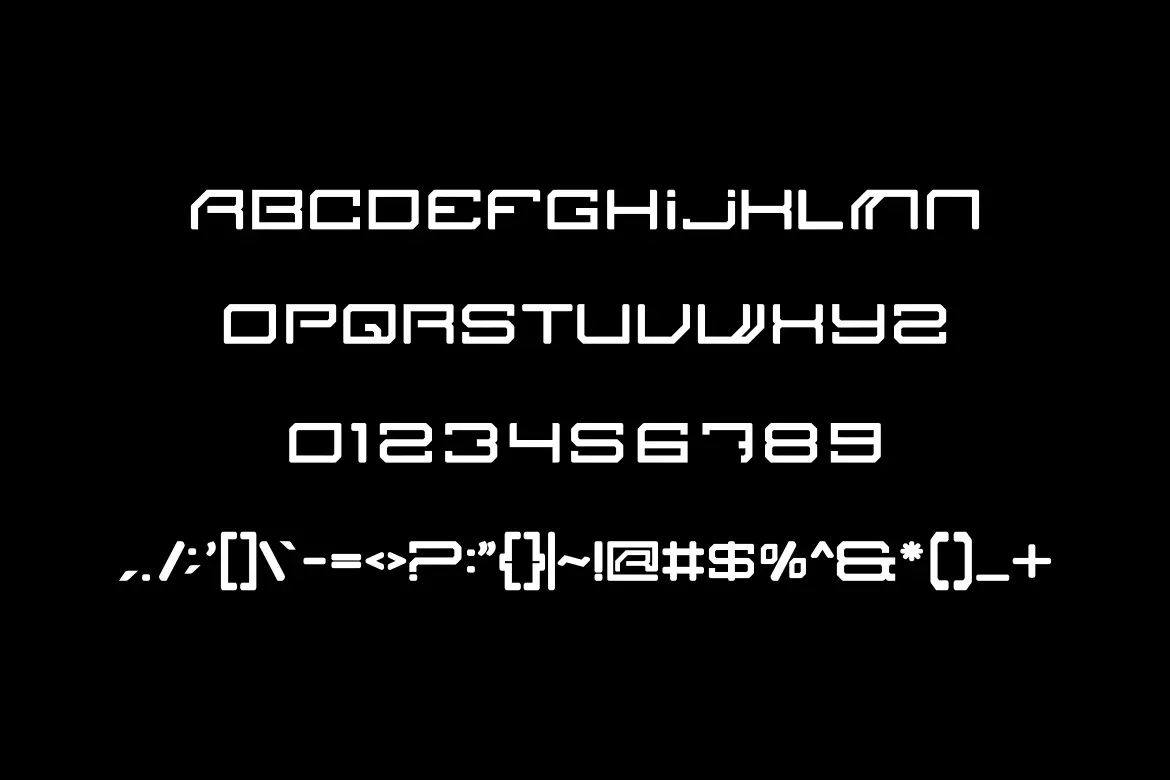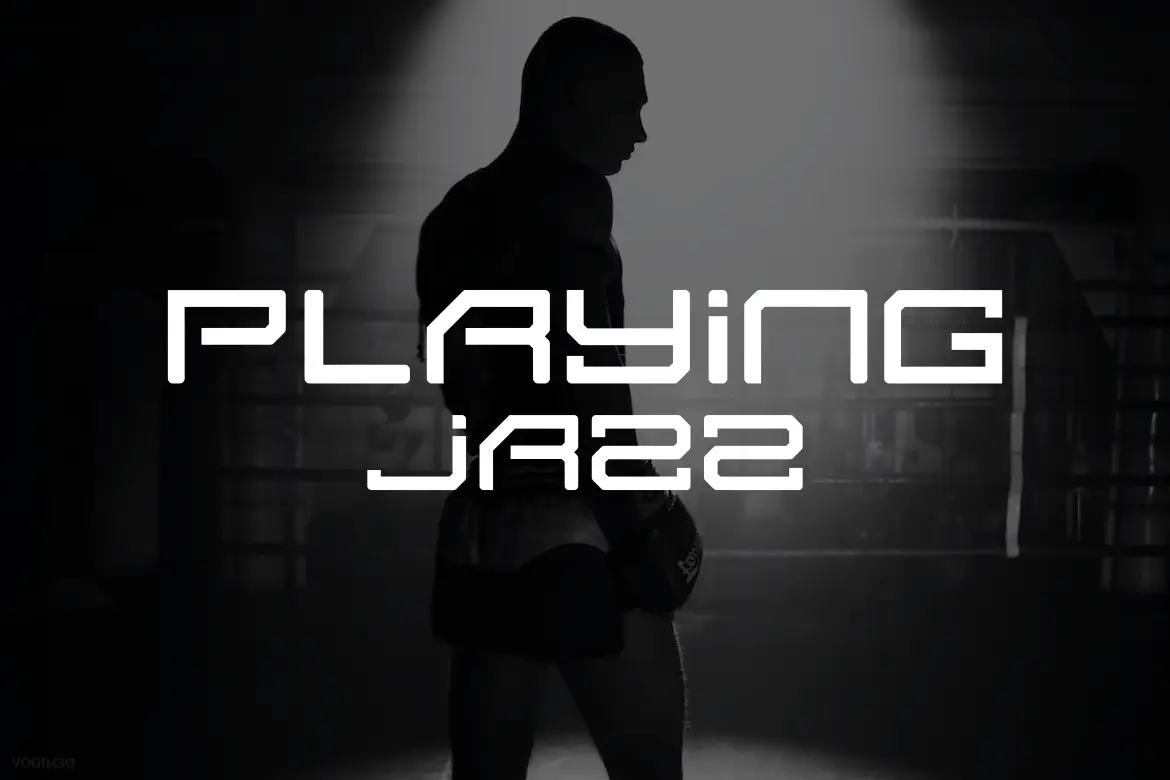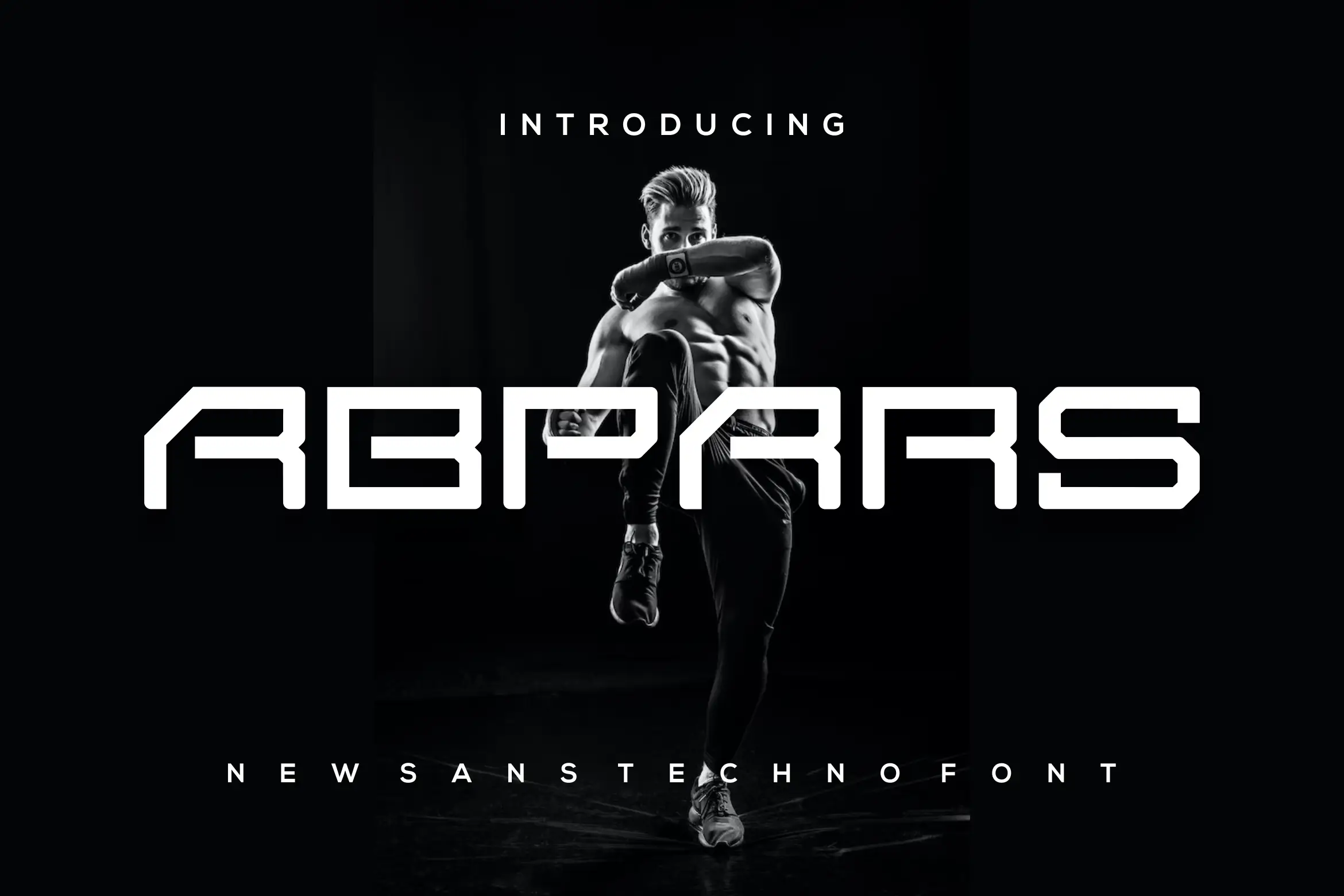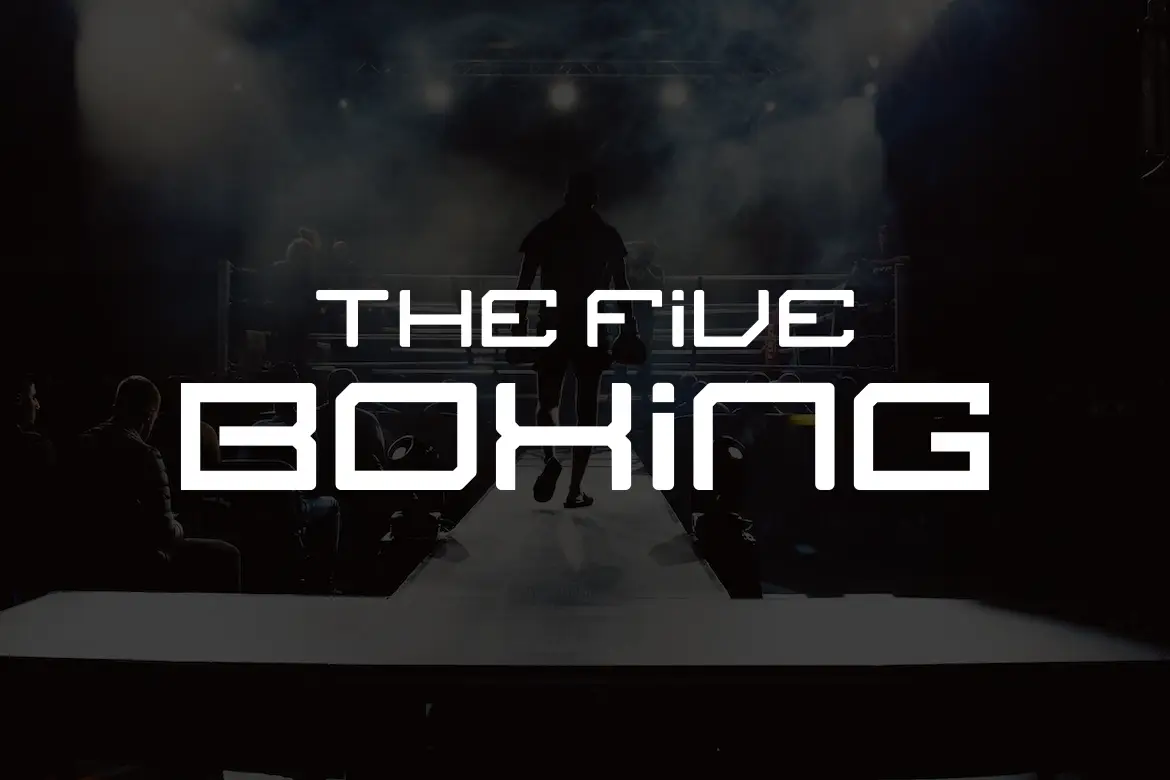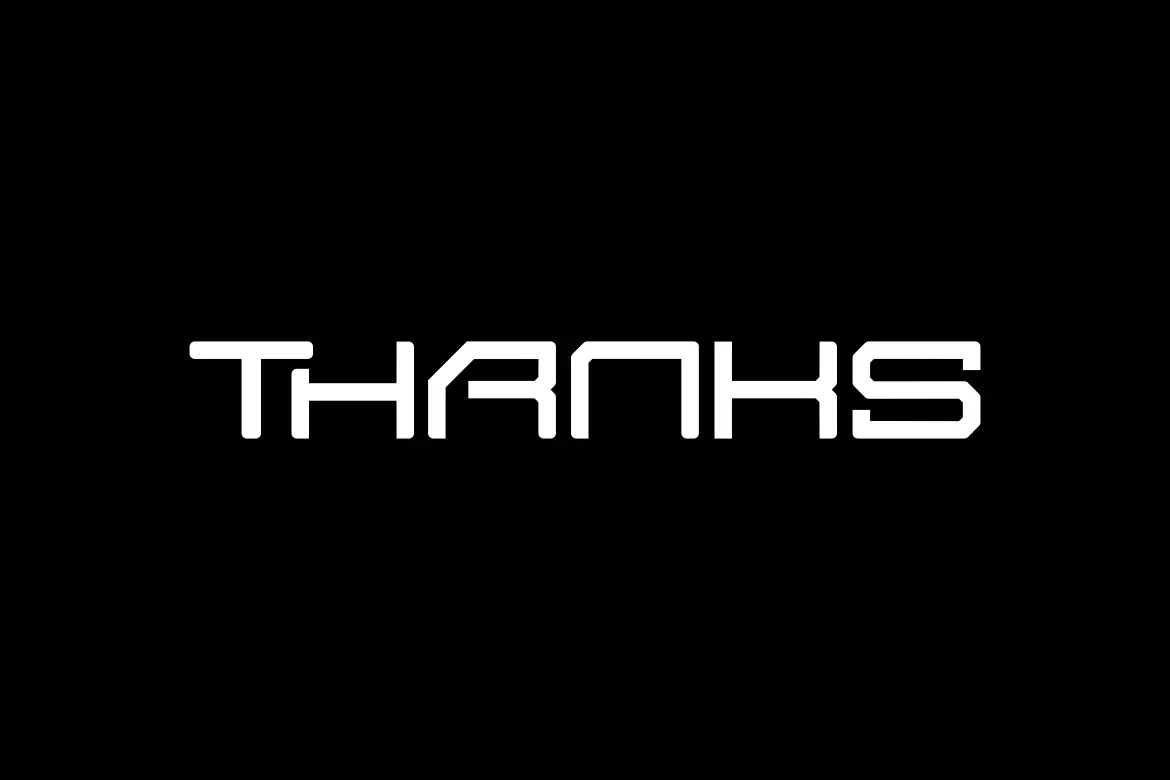
Abpars – Futuristic Font 2Y5Kx3F
Introducing Abpars, a stunning futuristic font designed to elevate your creative projects. This font features a unique blend of modern aesthetics and versatile usability, making it perfect for a variety of applications.
• Stylish, futuristic design
• Multiple weights for diverse applications
This font is ideal for branding, logo design, web graphics, and print materials. Its futuristic style adds a modern touch to any project, making it a great choice for tech-related themes and innovative designs.